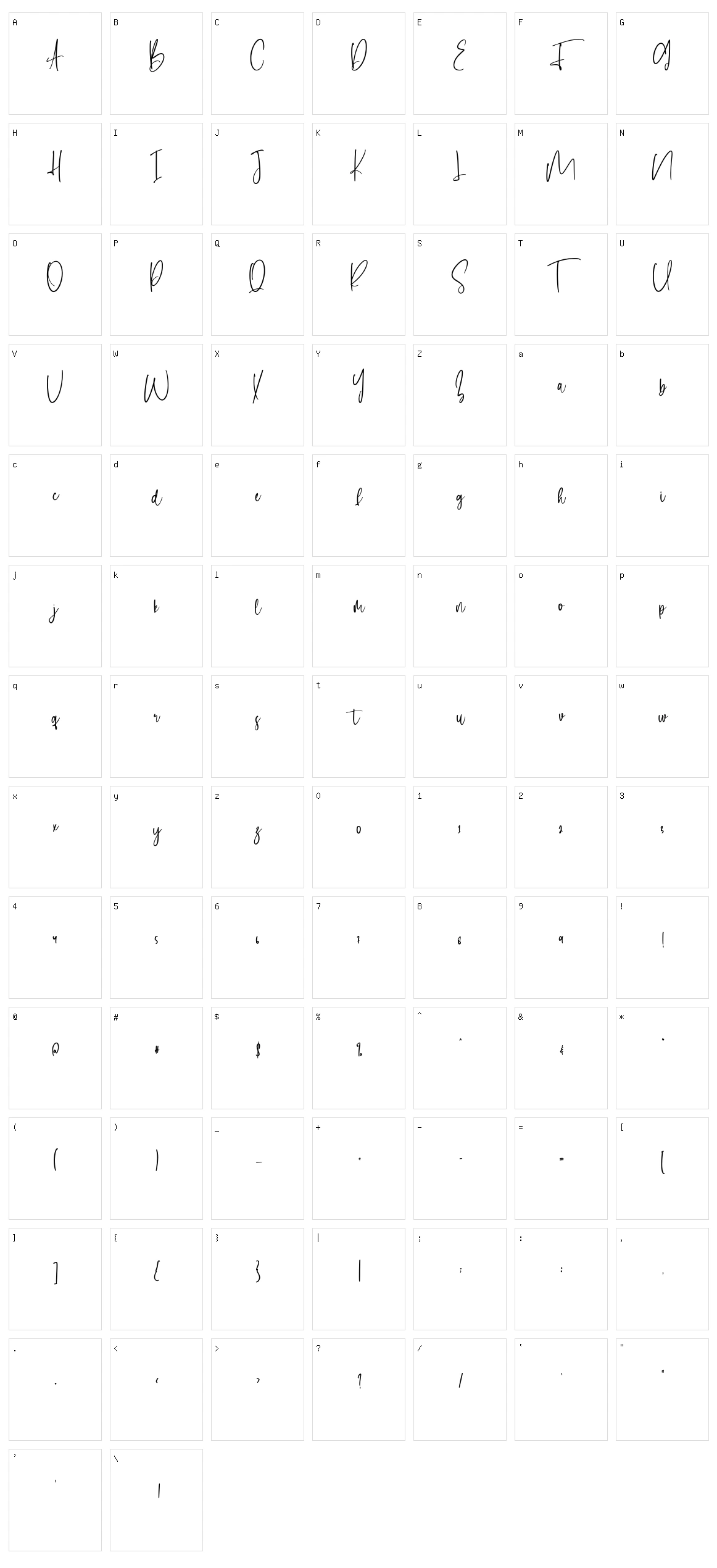
The free font Settary Tenjutsu is carefully designed by StringLabs Creative Studio, showcasing a thoughtful balance of creativity and usability and falls under the Script font style. When you download the ZIP file, it contains only 72.72 KB of font files, making it lightweight and quick to download. Please review the license details below to understand permitted usage and distribution rights. If license information is not available, we recommend using this font for personal projects only or contacting the author directly for commercial usage permissions.